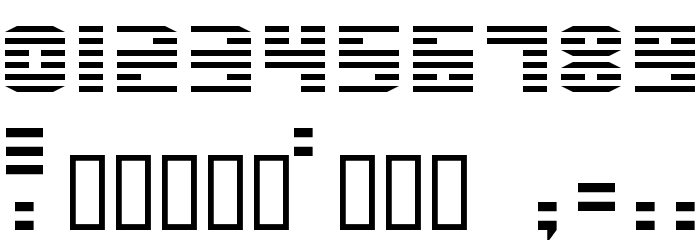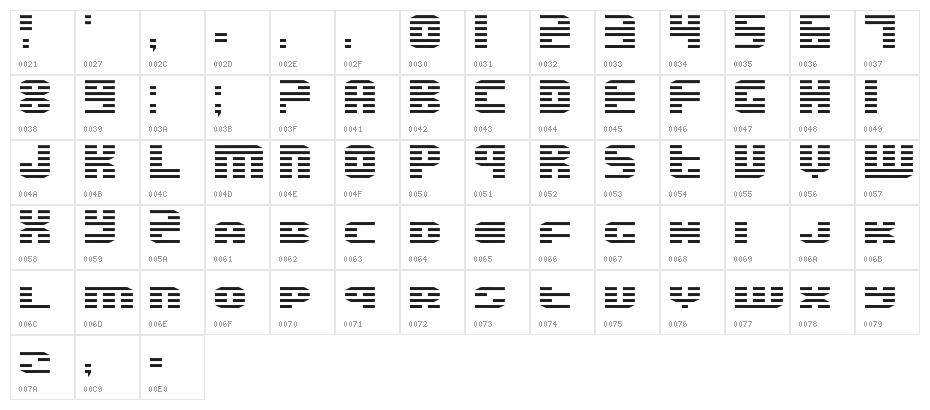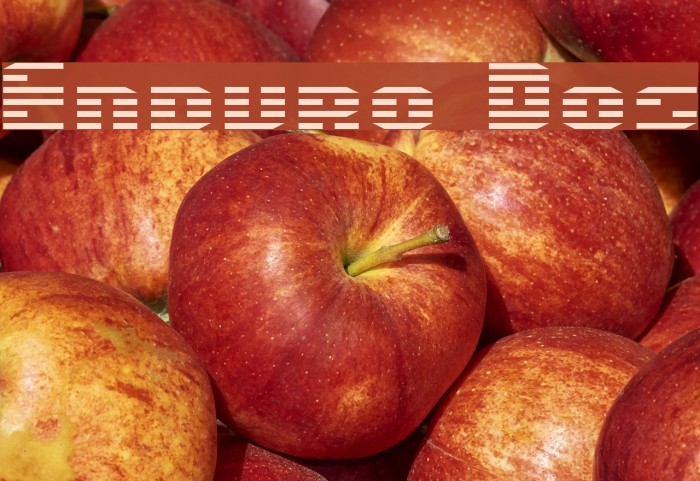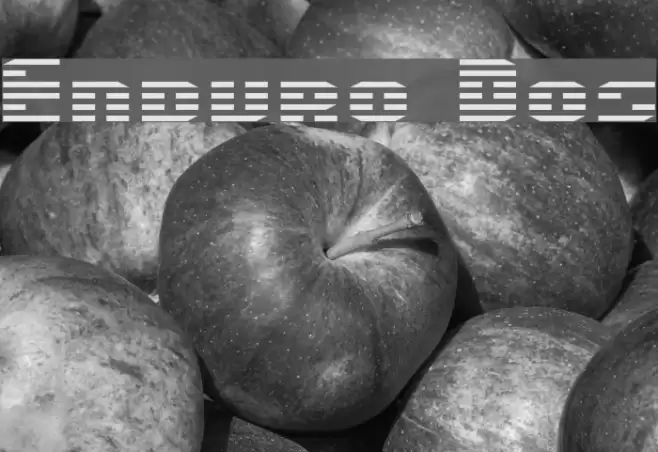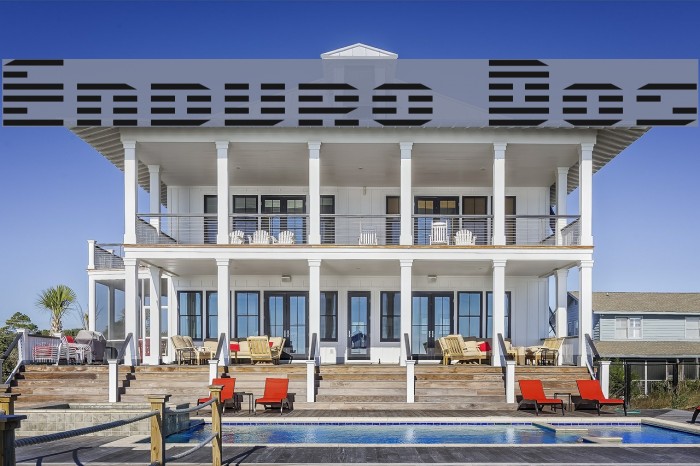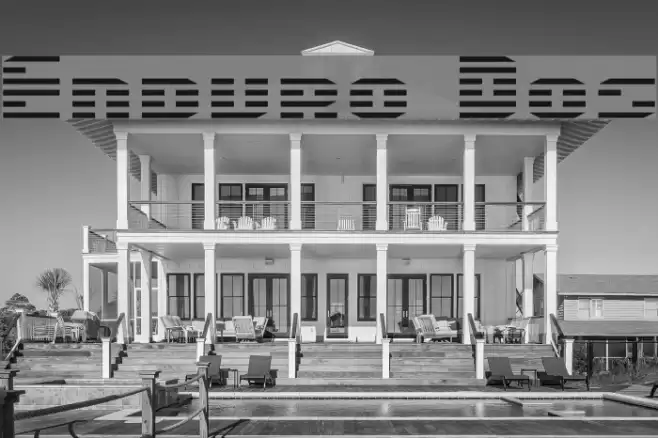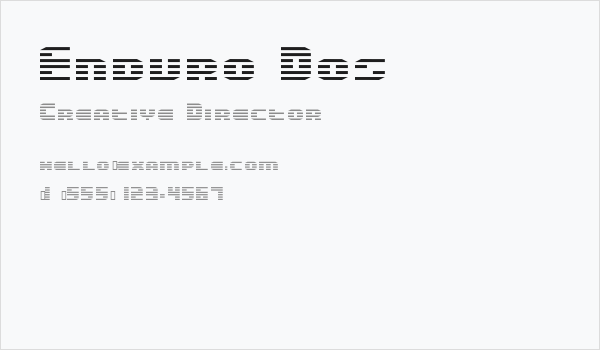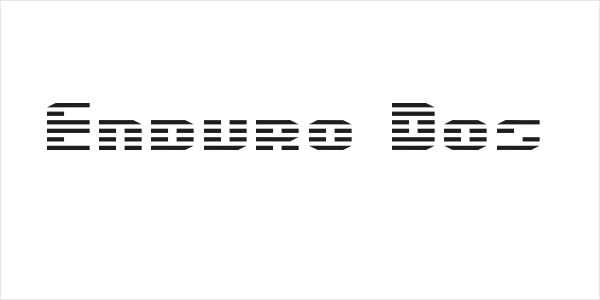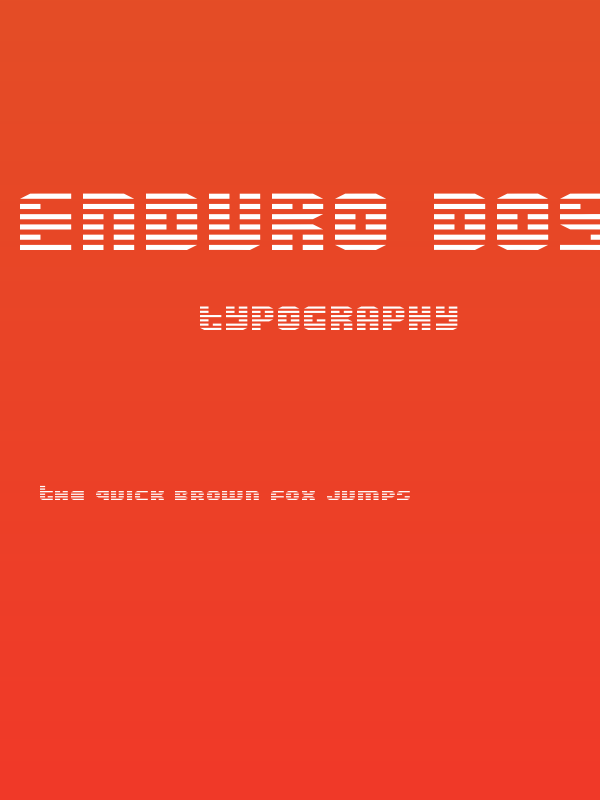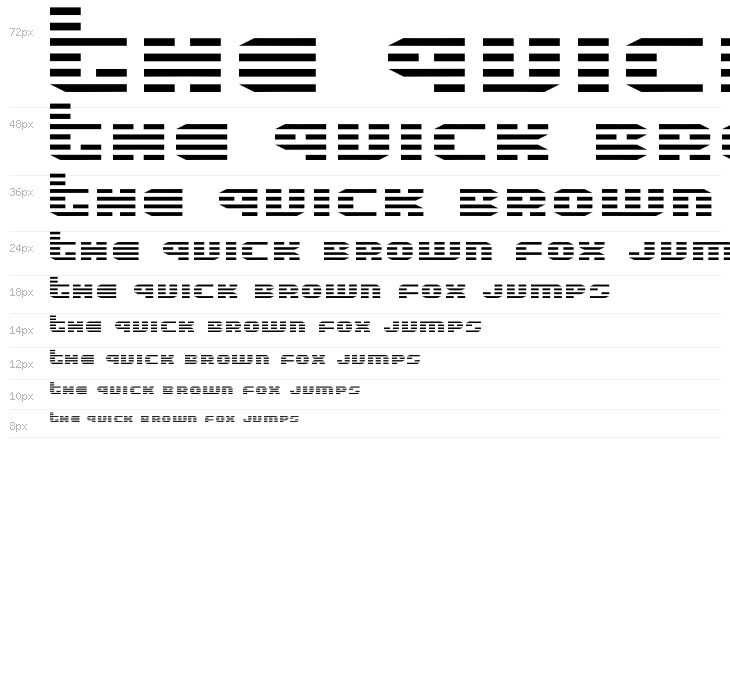
Enduro Dos Font
Enduro Dos Description
This font features a unique, futuristic design characterized by horizontal stripes that form each letter and number. The geometric shapes and clean lines give it a digital, high-tech appearance. Each character is composed of parallel lines, creating a sense of movement and energy. The uppercase and lowercase letters maintain a consistent style, with the lowercase being slightly smaller in scale. Numbers and special characters follow the same striped pattern, ensuring uniformity across the font. The overall look is bold and eye-catching, making it suitable for modern and innovative design projects.
Proposed ProjectsIdeal for technology branding, sci-fi themed designs, video game graphics, and modern advertising.